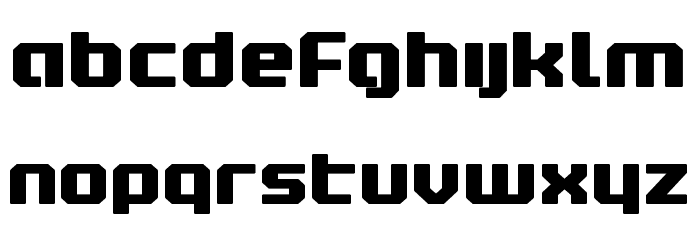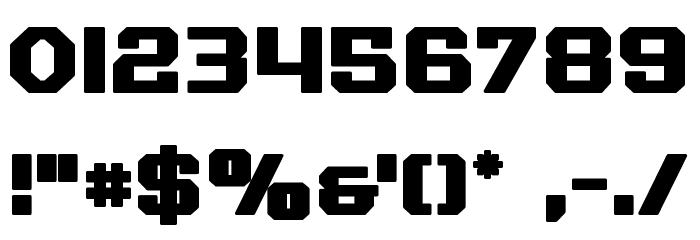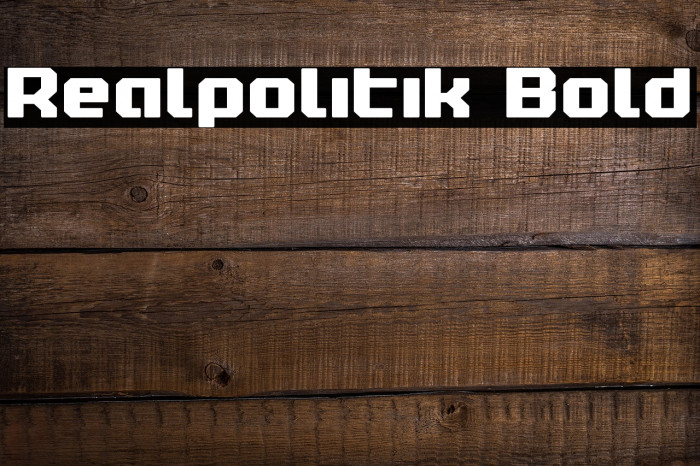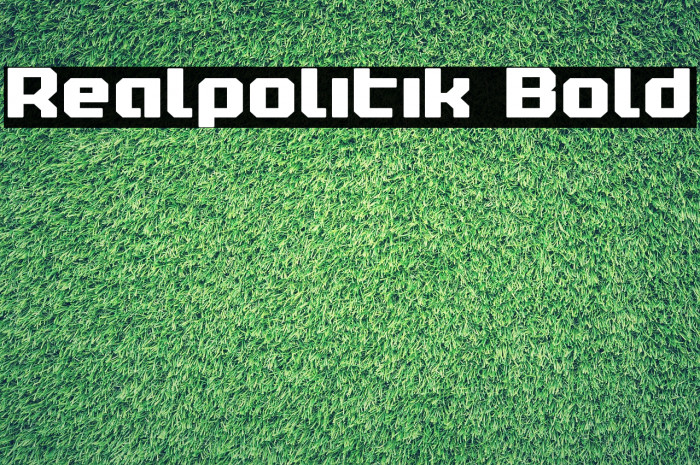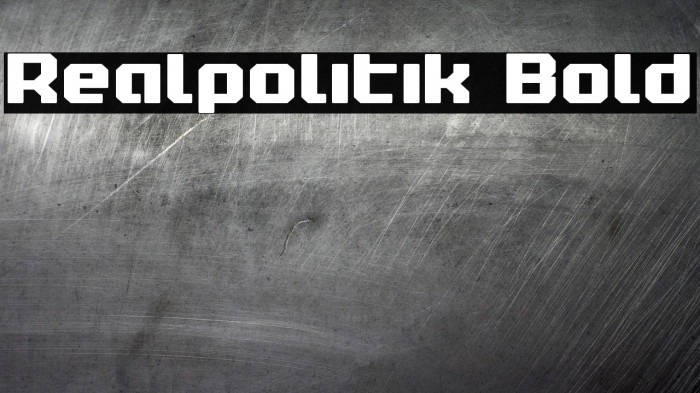
Realpolitik Bold Font
This font features a bold and geometric design, characterized by its blocky and angular letterforms. The uppercase and lowercase letters maintain a consistent width, contributing to a uniform appearance. The numerals and special characters follow the same geometric style, ensuring cohesion across all elements. The font's strong and assertive presence makes it suitable for impactful designs. Its modern and industrial aesthetic is enhanced by the sharp edges and clean lines, offering a contemporary feel that stands out in digital and print media.
A bold, geometric font with a modern, industrial aesthetic.
- Proposed Projects: Ideal for branding, posters, headlines, and digital media where a strong, modern look is desired.